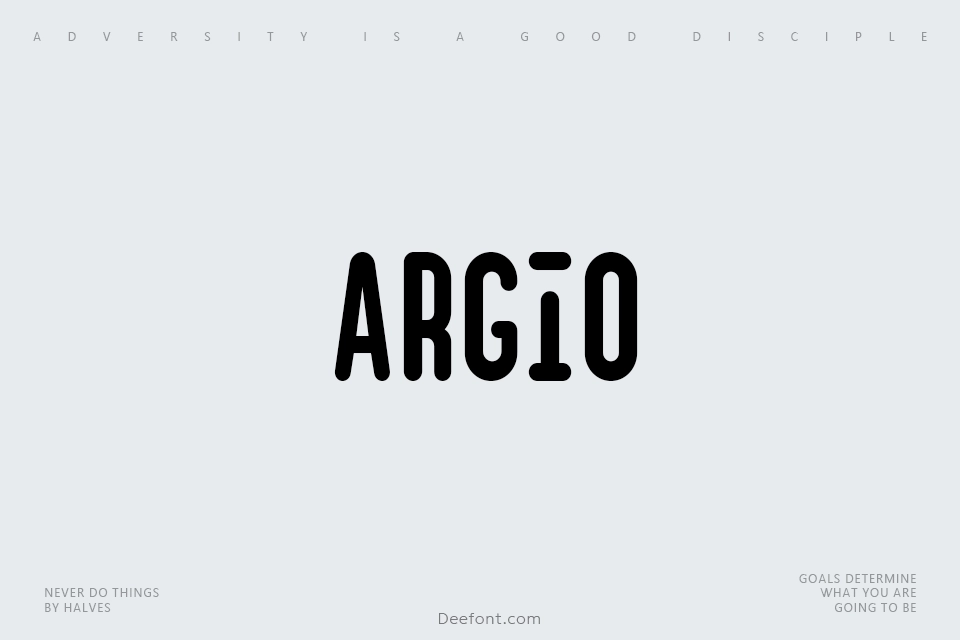
Argio Font
Argio is a fancy sans serif font featuring geometric and calm aesthetics, designed for headlines and logos. This versatile typeface includes optional stencils, multiple styles (Light, Regular, Bold, Shadow, Rough), and decorative ligatures that create unique eyecatchers. With its contemporary geometric design and flexibility across various weight options, Argio delivers distinctive visual impact for creative typography projects.